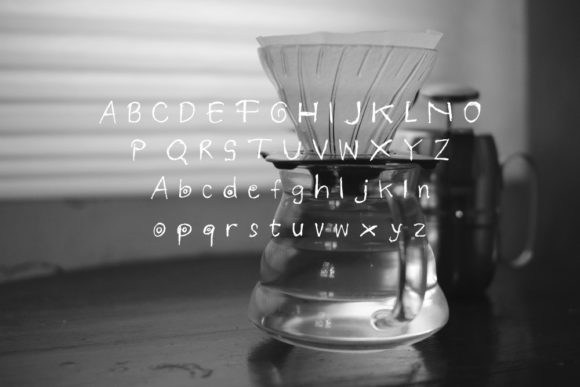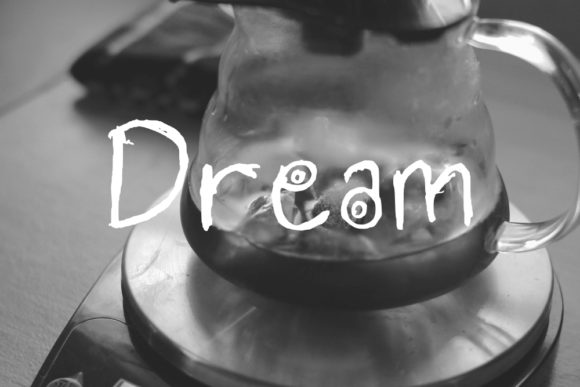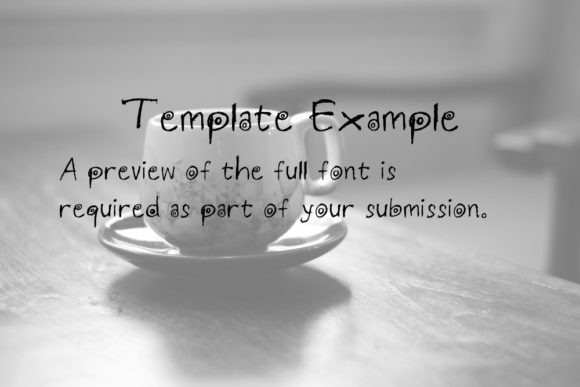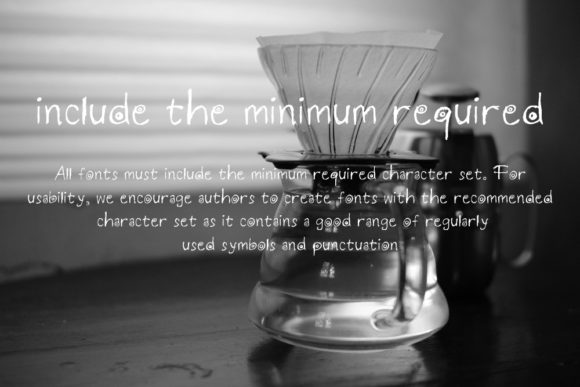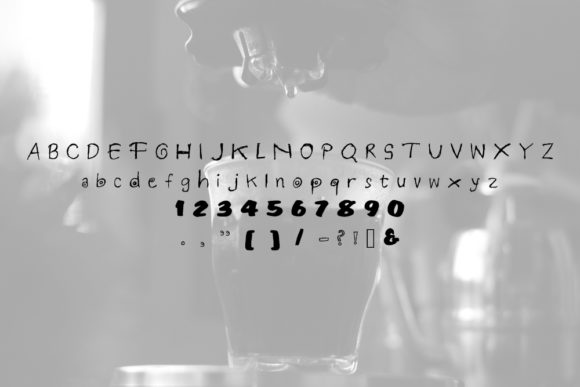
Introducing Anggicrush Font: The Sweet and Friendly Handwritten Font for Your Creative Projects
Are you a designer, crafter, or DIY enthusiast looking for a font that can add a personal touch to your creative projects? Look no further than Anggicrush Font! This sweet and friendly handwritten font is perfect for a wide range of designs, from invitations and greeting cards to branding and packaging. With its natural and unique style, Anggicrush Font is sure to make your projects stand out.
The Characteristics of Anggicrush Font
Anggicrush Font is a handwritten font that boasts a natural and effortless look. Its unique style is characterized by:
- Fluid strokes: The font features smooth and fluid strokes that give it a handwritten feel.
- Unique letterforms: Each letter has its own distinct personality, making the font perfect for creative projects.
- Warm and inviting: The font has a warm and inviting tone that is sure to capture the hearts of your audience.
The Versatility of Anggicrush Font
One of the best things about Anggicrush Font is its versatility. Its natural and unique style makes it incredibly fitting to a large pool of designs, including:
- Wedding invitations and stationery: Add a personal touch to your wedding invitations, save-the-date cards, and other stationery.
- Greeting cards and gift tags: Create beautiful and heartfelt greeting cards and gift tags for any occasion.
- Branding and packaging: Use Anggicrush Font to create a unique and memorable brand identity for your business.
- DIY crafts and scrapbooking: Add a personal touch to your DIY crafts and scrapbooking projects.
The Benefits of Using Anggicrush Font
So, why choose Anggicrush Font for your creative projects? Here are just a few benefits:
- Easy to read: The font is clear and easy to read, making it perfect for body text and headlines.
- Highly versatile: Anggicrush Font can be used for a wide range of designs and projects.
- Unique and creative: The font’s unique style is sure to make your projects stand out from the crowd.
- Supports multiple languages: Anggicrush Font supports multiple languages, making it perfect for international designs.
Anggicrush Font is a sweet and friendly handwritten font that is perfect for designers, crafters, and DIY enthusiasts. Its natural and unique style makes it incredibly fitting to a large pool of designs, and its versatility ensures that it can be used for a wide range of creative projects. With Anggicrush Font, the only limit is your imagination!